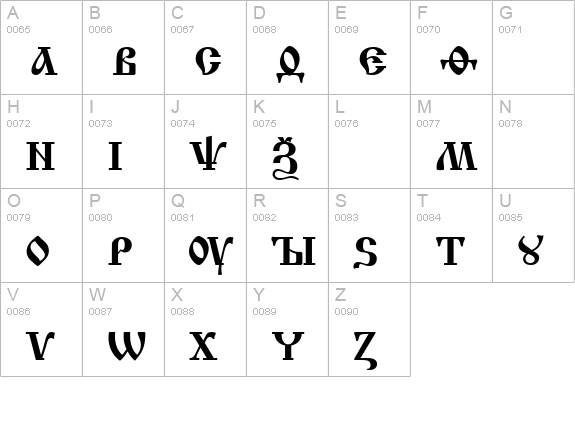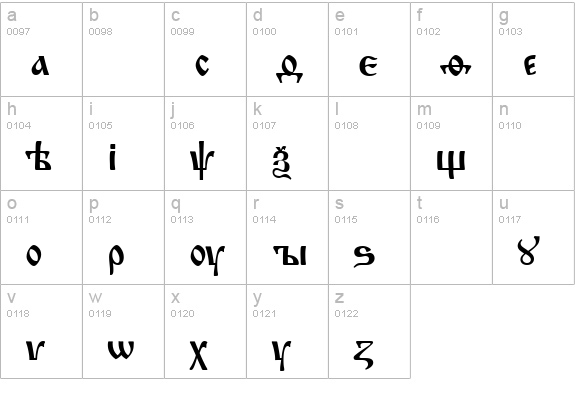
Izhitsa Font Details
Introducing Izhitsa, a stunningly elegant font that effortlessly blends classic sophistication with contemporary style. This beautiful typeface is perfect for adding a touch of refinement to any project, whether it's a wedding invitation, a logo design, or a magazine spread. Izhitsa features exquisite letterforms with sleek, flowing lines and delicate details. Each character is meticulously crafted to exude grace and charm, making this font a true standout in any creative endeavor. Its timeless appeal and versatility make it suitable for both formal and informal settings, allowing you to convey your message with utmost elegance. What sets Izhitsa apart is not only its remarkable aesthetics but also its accessibility. This font is freely available to download at FontsMarket.com, ensuring that designers, artists, and enthusiasts alike can effortlessly incorporate this exquisite typeface into their projects. With just a few clicks, you can bring this refined font into your creative arsenal, providing endless possibilities for your next masterpiece. Whether you're designing a wedding invitation suite or crafting a logo for a high-end brand, Izhitsa will effortlessly elevate your work to new heights. Its timeless beauty and understated elegance will captivate your audience, leaving a lasting impression. With Izhitsa, you can transform your designs into refined works of art that stand out from the crowd. Don't miss out on the opportunity to add Izhitsa to your font collection. Download this exquisite typeface for free at FontsMarket.com and unlock a world of elegance and creativity. Elevate your design projects with Izhitsa and let your imagination soar.